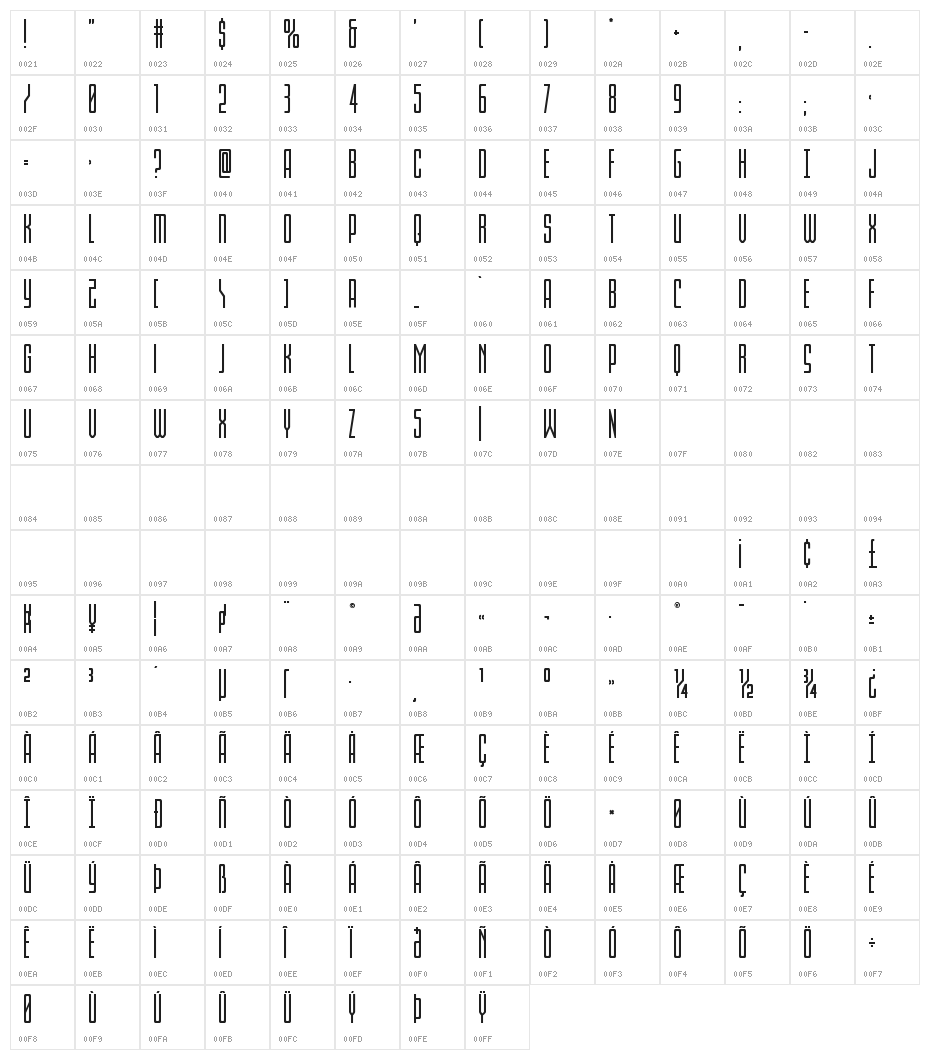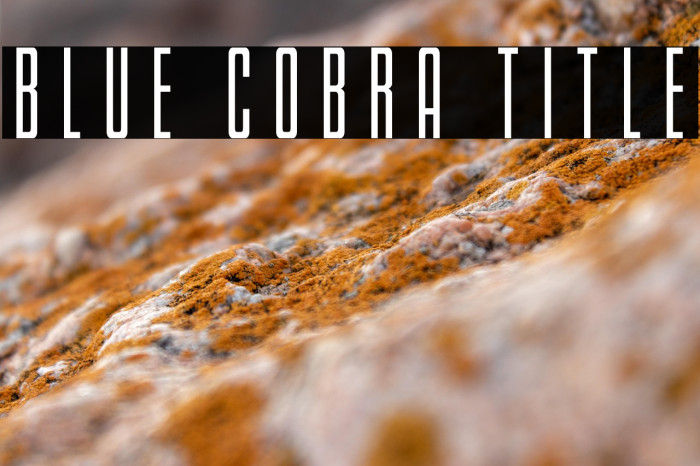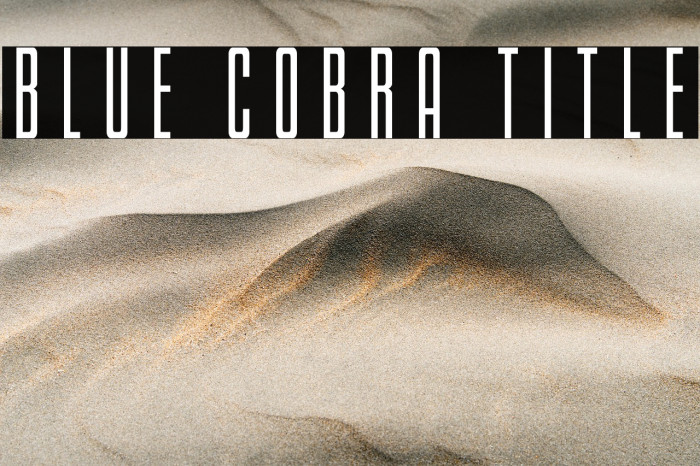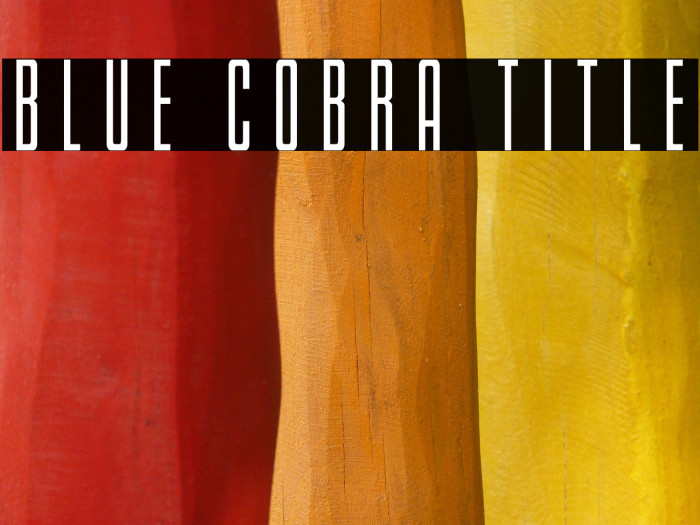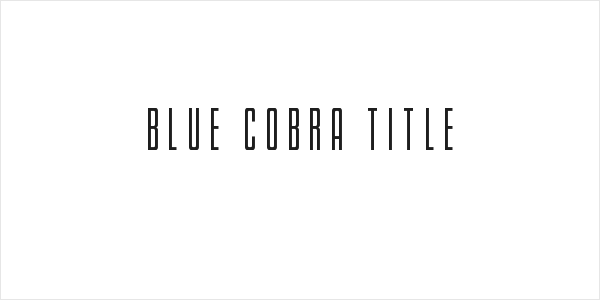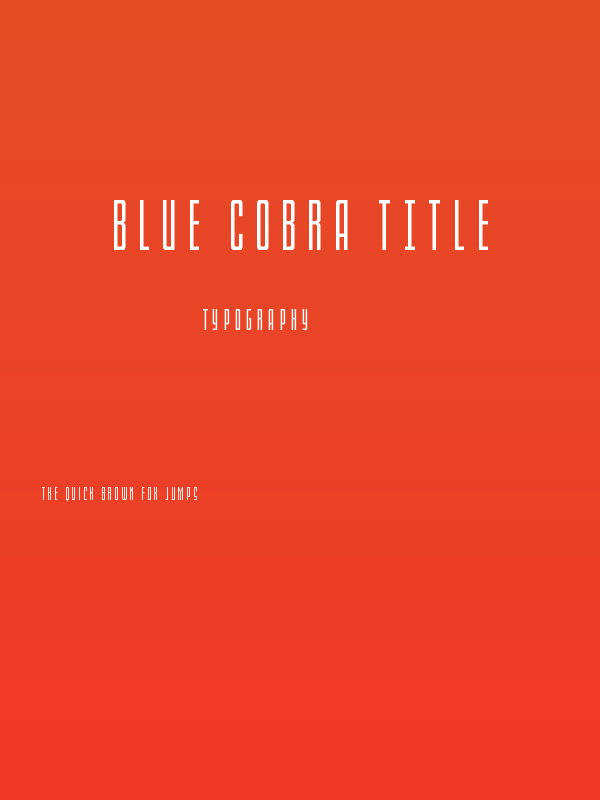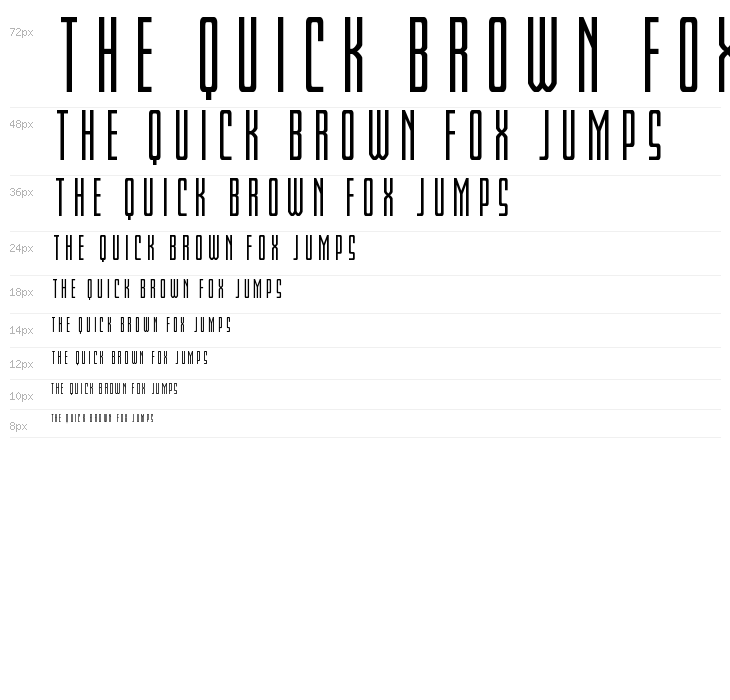
Blue Cobra Title Font
Blue Cobra Title Description
This font features a tall, narrow design with a distinctly modern and geometric aesthetic. The characters are elongated with consistent stroke widths, giving it a sleek and streamlined appearance. The uppercase letters are particularly striking, with sharp angles and minimal curves, creating a sense of precision and sophistication. The numbers and special characters maintain this uniformity, ensuring a cohesive look across all glyphs. The font's clean lines and structured form make it ideal for creating impactful titles and headings.
| Proposed Projects | Ideal for modern branding, poster designs, and editorial headlines where a bold, contemporary look is desired. |